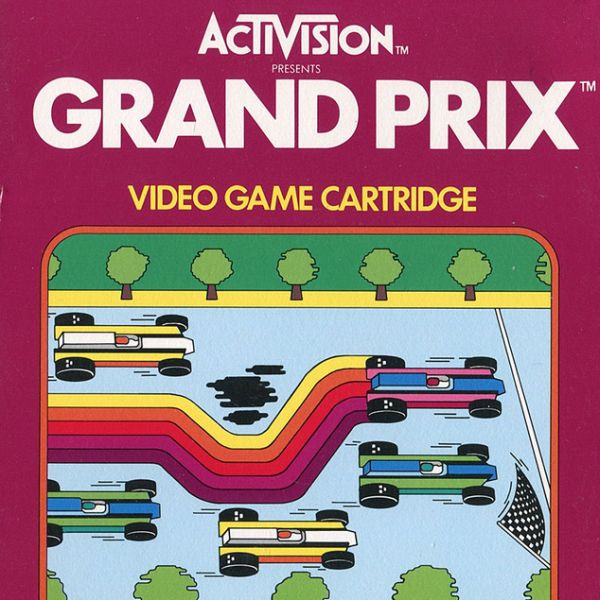
Grand Prix Font
Fonts in UseGrand Prix is a racing video game that was originally developed by Activision for the Atari 2600 console in 1982. In Grand Prix, players control a Formula One race car and compete in various races around the world.
The game title's font is likely Futura Bold, a geometric sans-serif created by Paul Renner in 1927. Further information regarding it can be found here.